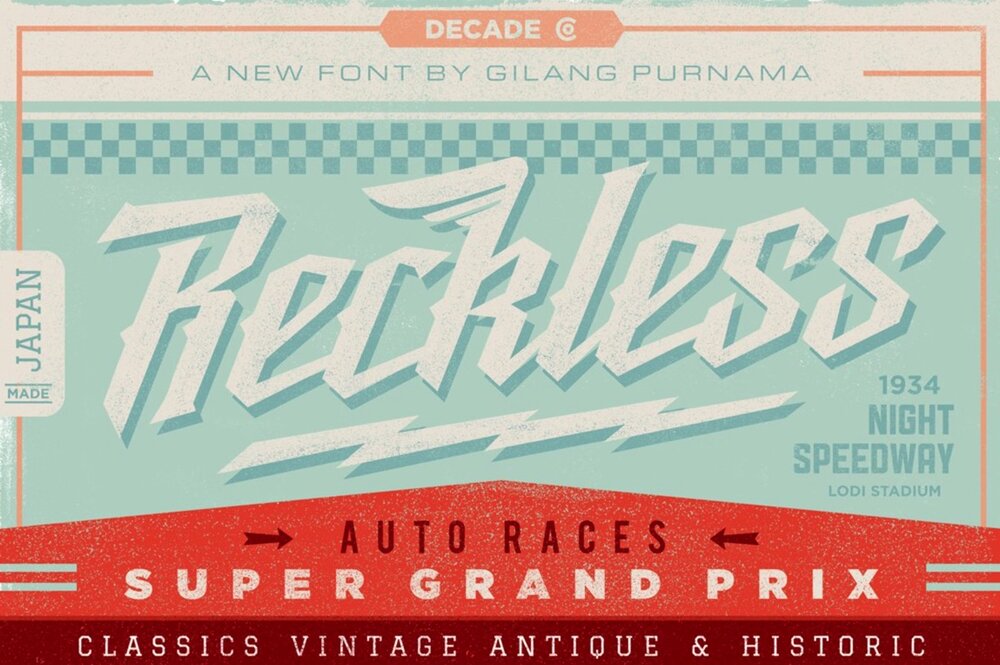
Best 1950S Style Font. Affair is a famous fancy font style, used by many artists for their designs. Vignettic is a cursive and joyful font.
The retro fonts of 1950 have a cinematic look. And was inspired by prohibitionist era typography. The font has two styles and includes a kerning and multilingual character.
Labor union, shared by mcletters, is available for free for personal and commercial use. Z y m m atomic age eben sorkin 1 styles. And was inspired by prohibitionist era typography.
Carosello 1950s style marker font; The best 1950’s fonts for graphic design, branding, and logo design. When i take a look at any of the fonts below, images of old movies come to my mind.
Affair Is A Famous Fancy Font Style, Used By Many Artists For Their Designs.
The Pop Of Color Adds To The Fun And Lets The Font Take The Center Stage Of Any Design.
Designed by nelson balaban, this font has a very minimalistic, stylish tone with crisp and clear lines. Highbinder display font is the newest font from vintage type co. The retro fonts of 1950 have a cinematic look.
Strikeout Is A Beautiful Script Typeface Inspired By 1940S And 1950S Baseball Era.